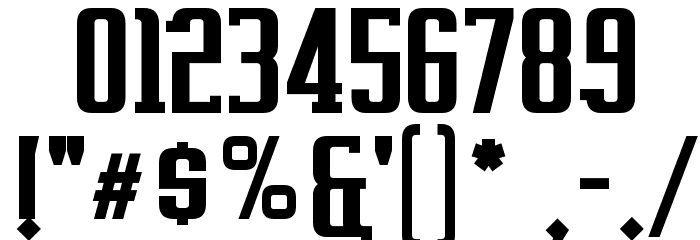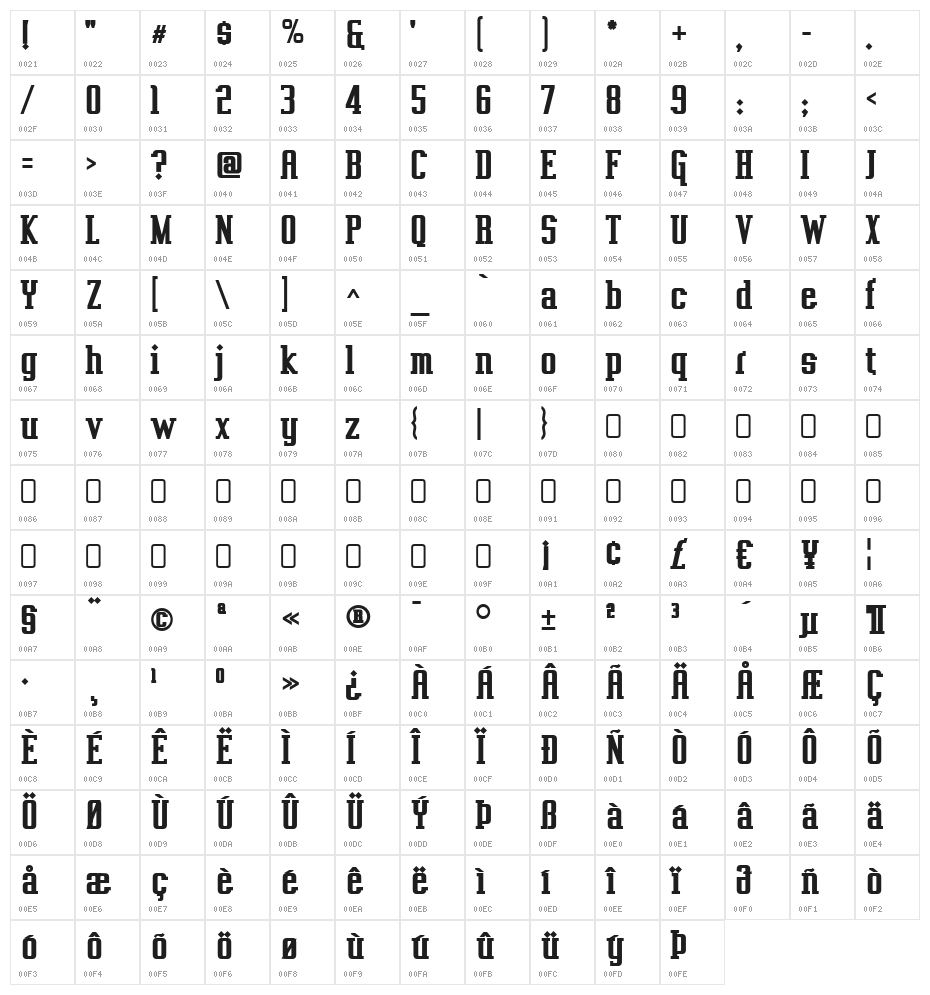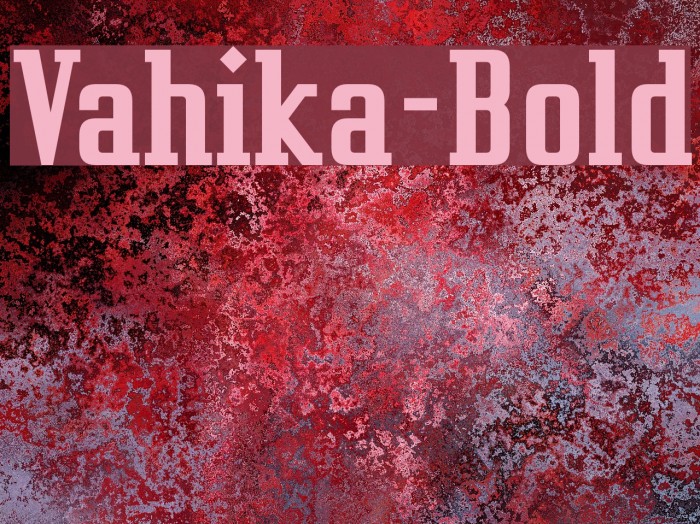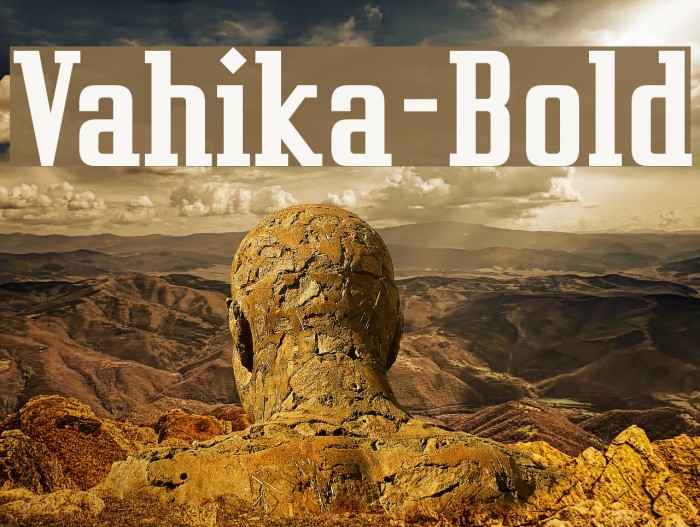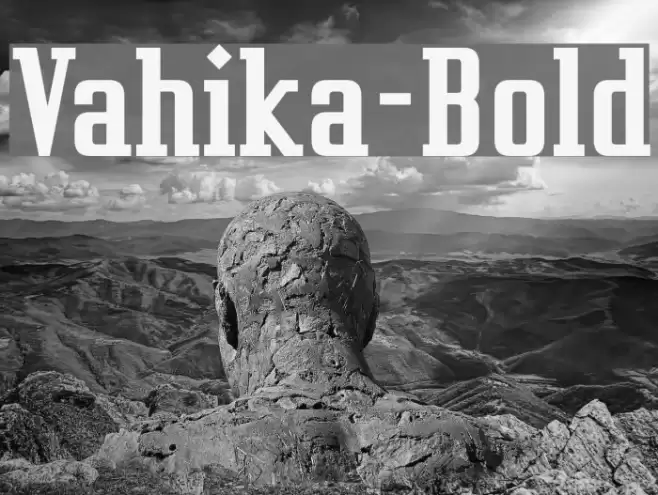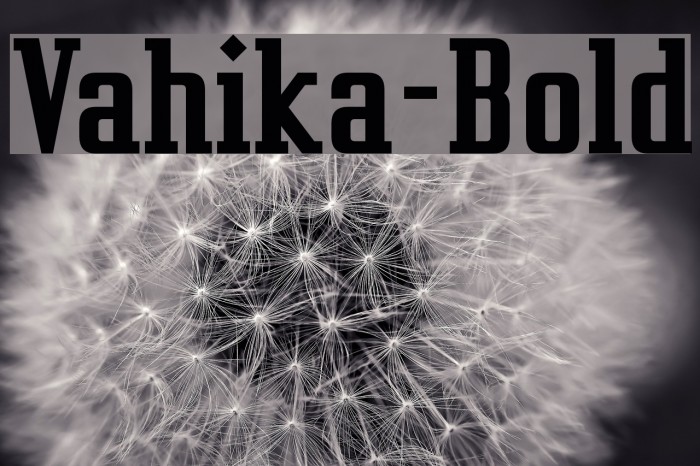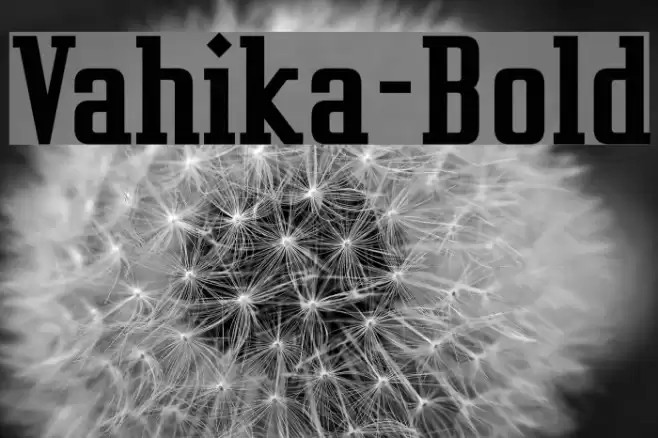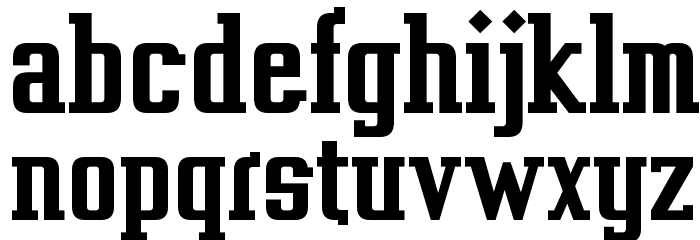
Vahika-Bold Font
Vahika-Bold Description
This font exhibits a bold and commanding presence with its strong, slab serif design. The characters are robust and well-defined, featuring thick vertical strokes and slightly thinner horizontal strokes, creating a balanced yet impactful appearance. The uppercase letters are particularly striking, with a uniform height and width that convey a sense of stability and strength. The lowercase letters maintain the same boldness, ensuring readability and consistency across different text sizes. The numerals are equally bold, making them stand out clearly. Special characters are designed with the same attention to detail, ensuring they integrate seamlessly with the rest of the font. Overall, this font is ideal for making a strong visual statement.
Proposed ProjectsIdeal for headlines, posters, branding, and any project requiring a bold, impactful typeface.